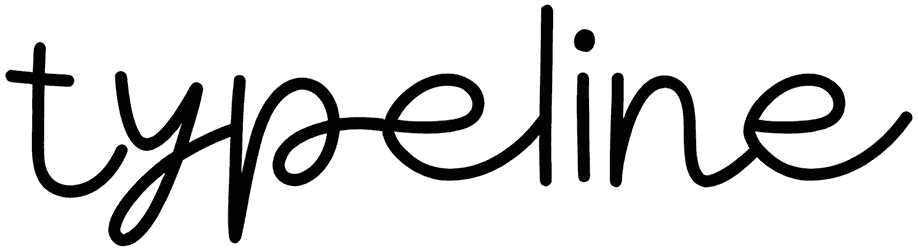
Typeline Font
It will be so loveable if your texts have a manuscript outward with a real and smooth mood. Typeline is a fast handwritten font with monoline letterforms and is a nice display for a lot of themes and designs, for example, postcards, quotes, textiles, and so forth. As a script font, Typeline will attract your viewers with its charming and joyful feel.